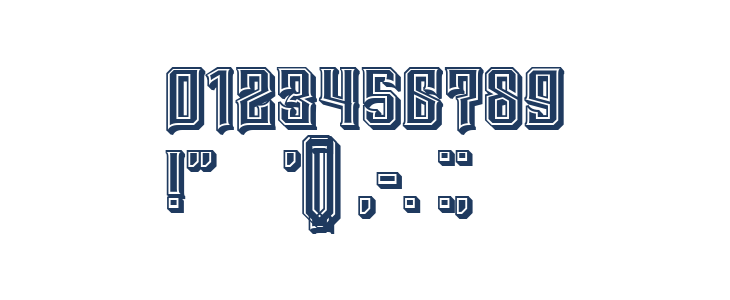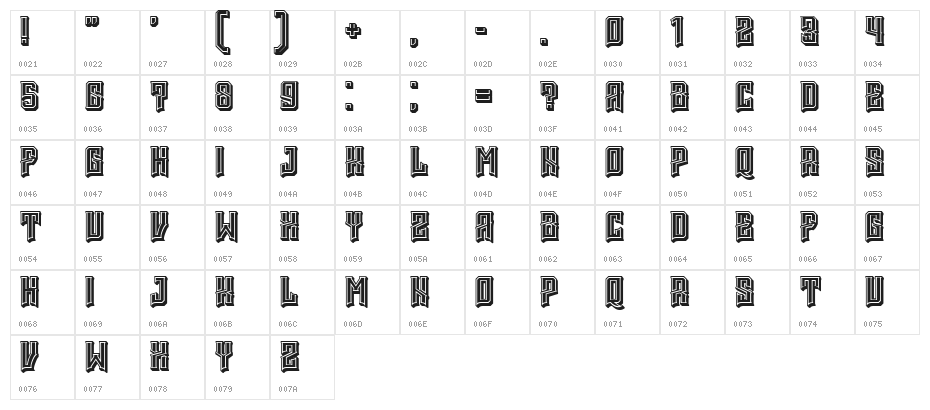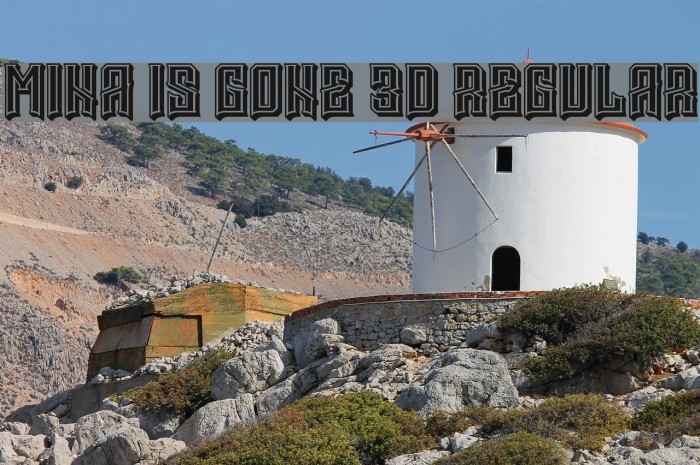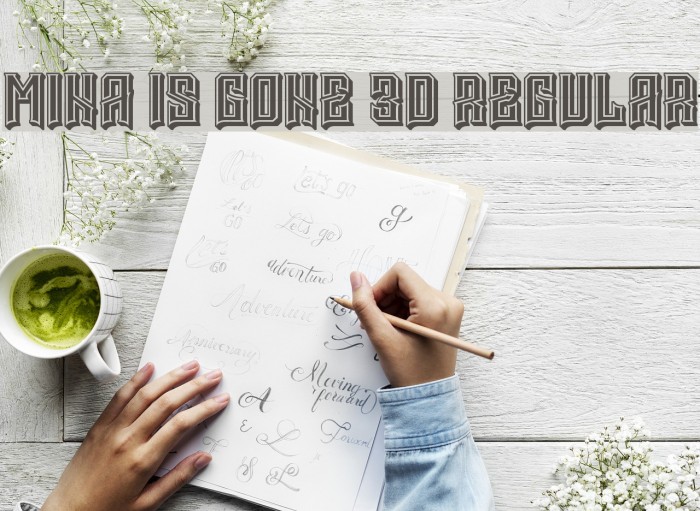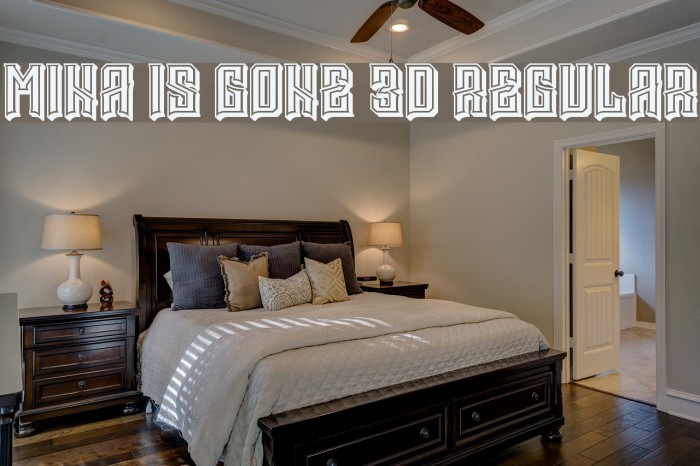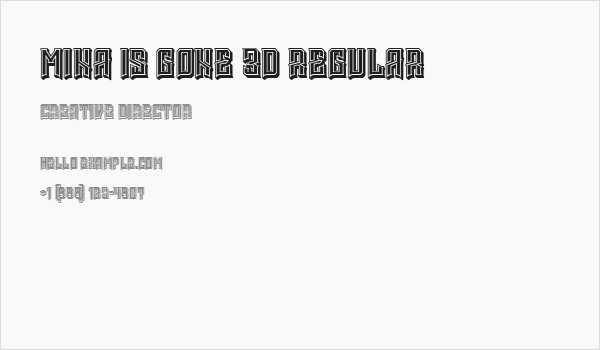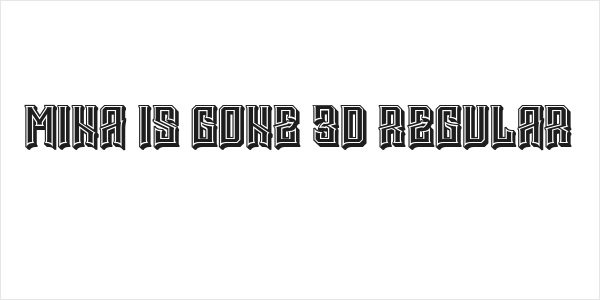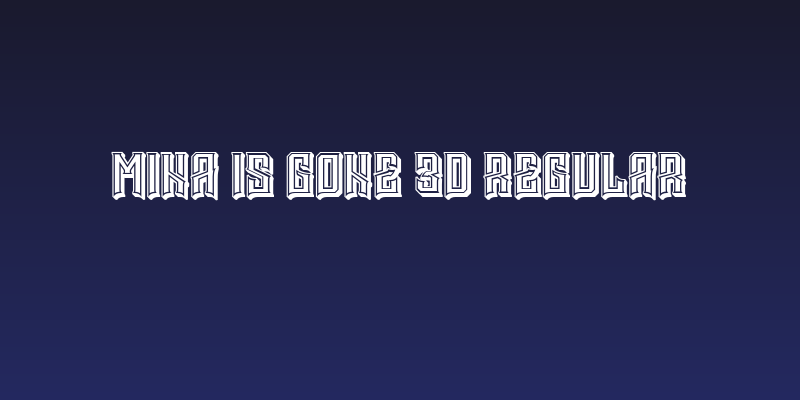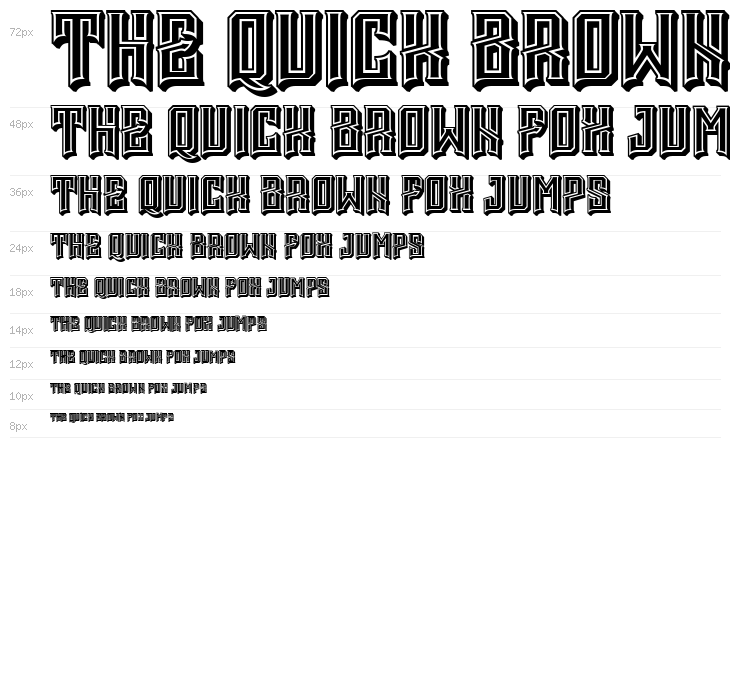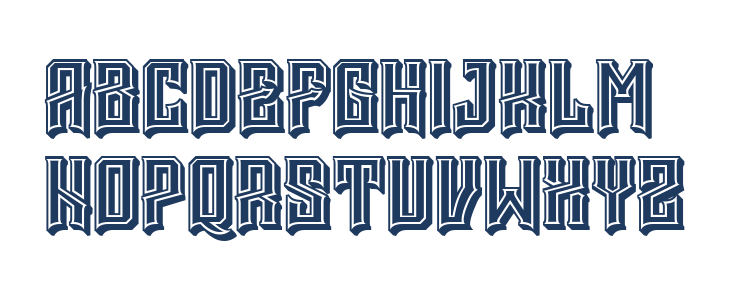
Mina is gone 3D Regular Font
Mina is gone 3D Regular Description
This font features a bold, three-dimensional design with a strong presence. Each character is outlined with a thick border, creating a shadow effect that gives the font a striking, embossed appearance. The uppercase letters are angular and geometric, with sharp edges and a solid structure. The numerals and special characters maintain this bold style, ensuring consistency across all glyphs. The font's design is reminiscent of vintage signage or classic tattoo lettering, making it ideal for projects that require a bold statement.
| Proposed Projects | Perfect for poster designs, album covers, branding projects, and any creative work that requires a bold, eye-catching typeface. |